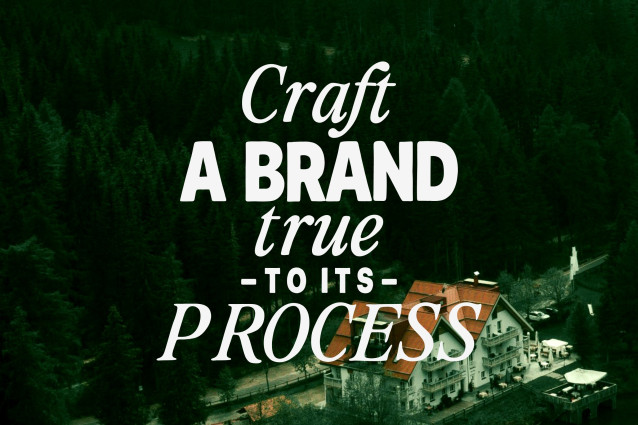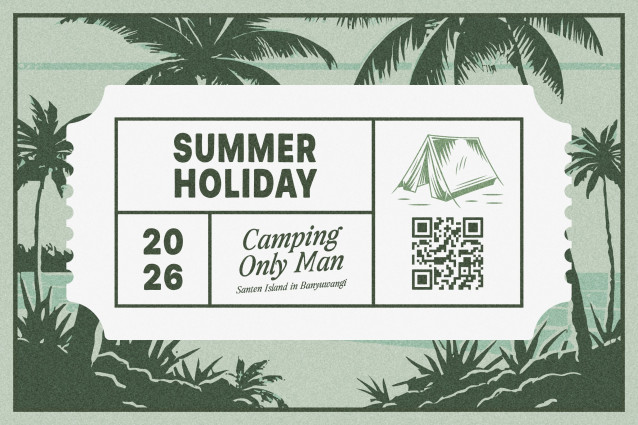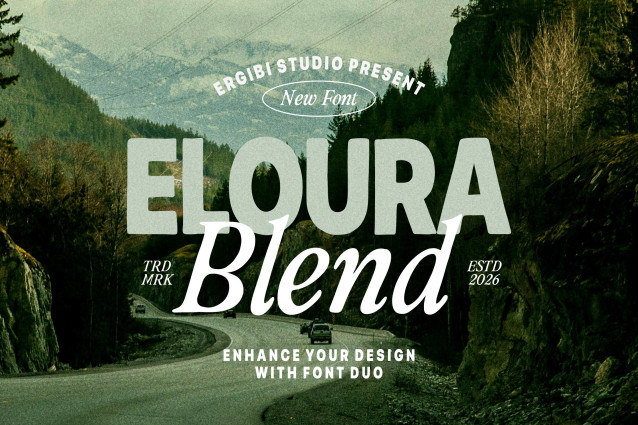
Eloura Sans Font
Eloura Sans Font is a modern font duo that brings together an elegant serif and a clean, simple sans serif. The pairing is designed to feel natural and easy to read, while still carrying a strong and distinctive character.
This font works beautifully across many design needs—branding, editorial layouts, logos, packaging, posters, and social media. The serif adds a sense of warmth and refinement, while the sans serif keeps things fresh, clear, and modern.